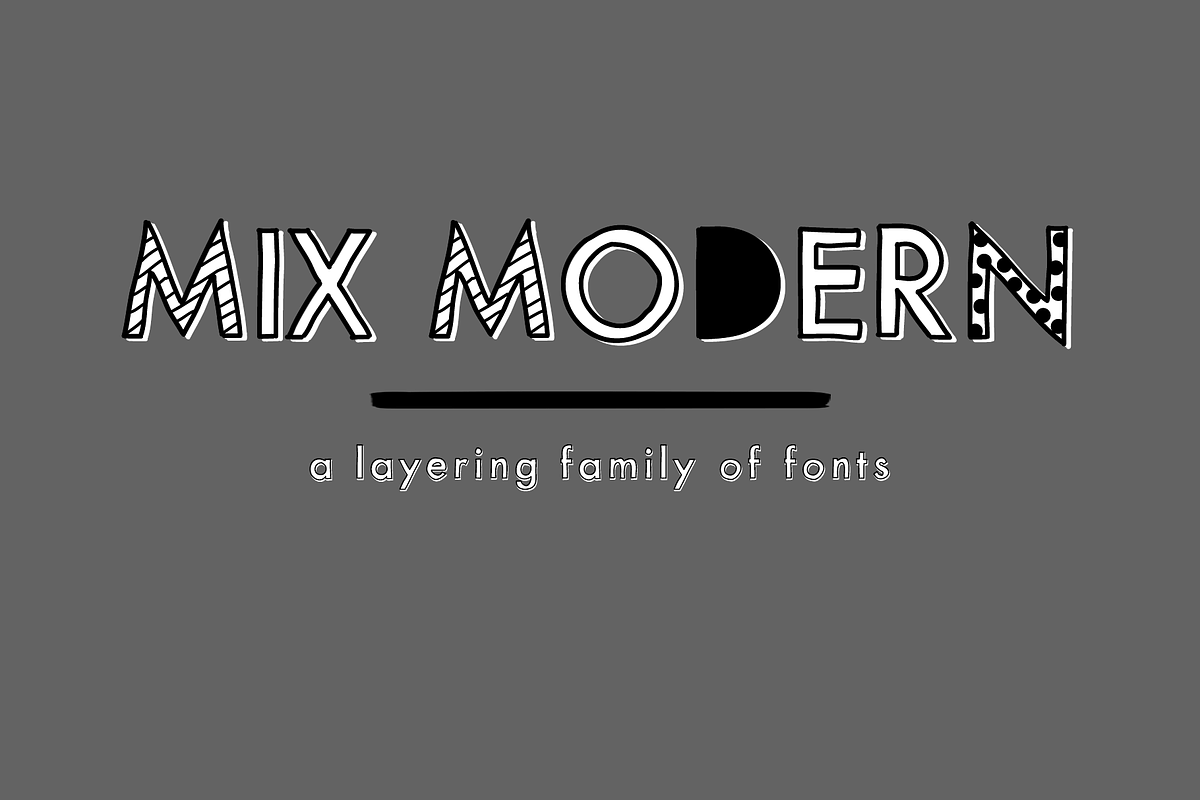
Mix Modern — A Layering Fonts Family Free Download
Mix Modern – A Layering Fonts Family Free Download is a bold and versatile type system designed to give your designs depth, color, and dimension through stylish font layering. Please note, you are required to purchase this font family for commercial use. It is available for free download for testing and personal projects only.
With multiple stackable styles—including base, shadow, outline, and texture layers—Mix Modern is perfect for posters, headlines, logos, packaging, event branding, and eye-catching digital content. Its geometric structure and modular design make it easy to create dynamic, custom typography with a modern edge.